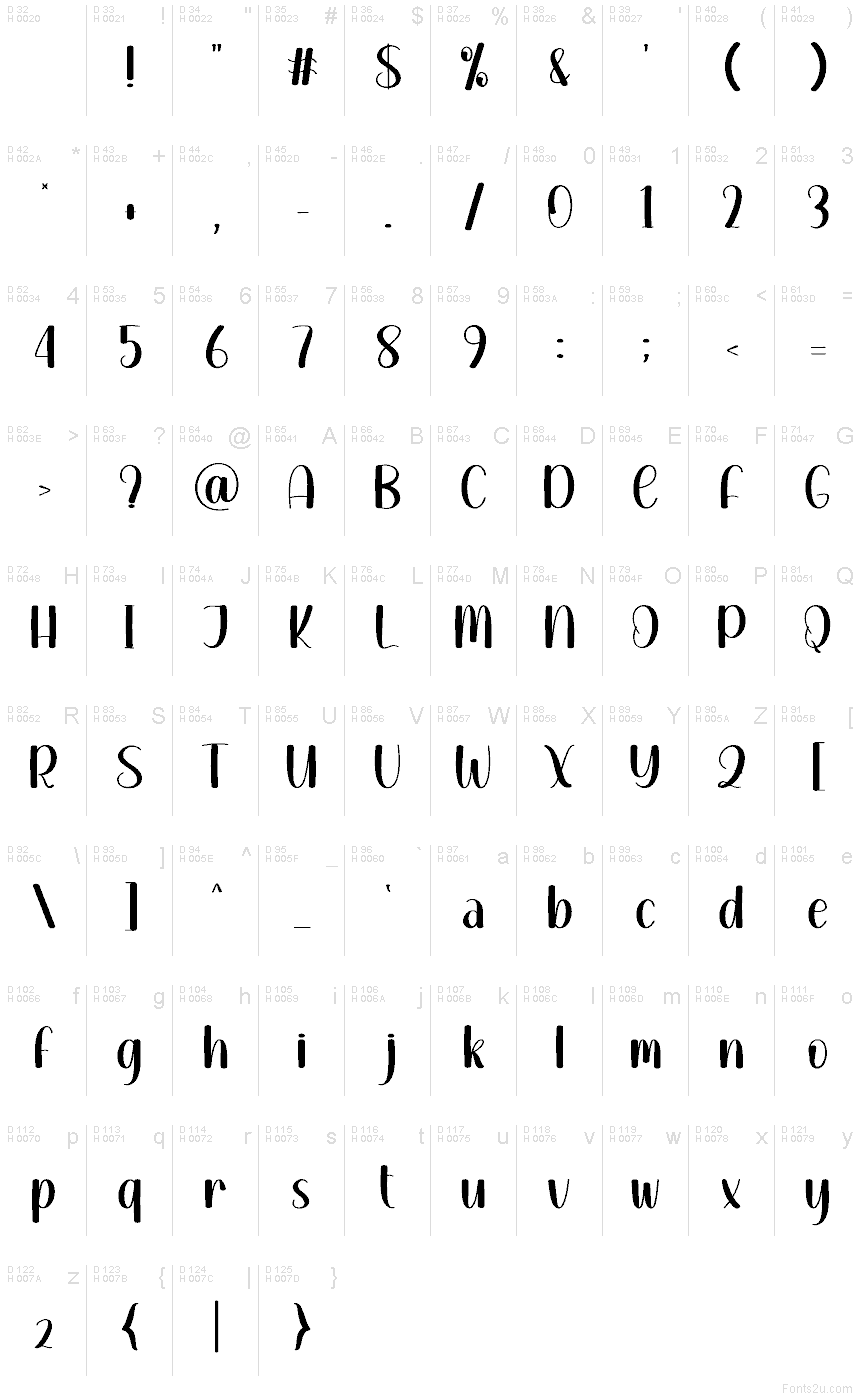
Winter Tourism
Winter Tourism font by Andi Moz is a free handwritten font with ornamental and whimsical details. The decorative script has an artistic flair and vintage-inspired ambiance which overall gives it an expressive lively look. This is a calligraphic, unusual yet friendly typeface.
The font can be used for invitations, book titles, comic books, magazines and newspapers. Additional uses include packaging design, stationery design, brochures, flyers and posters with many other options available.